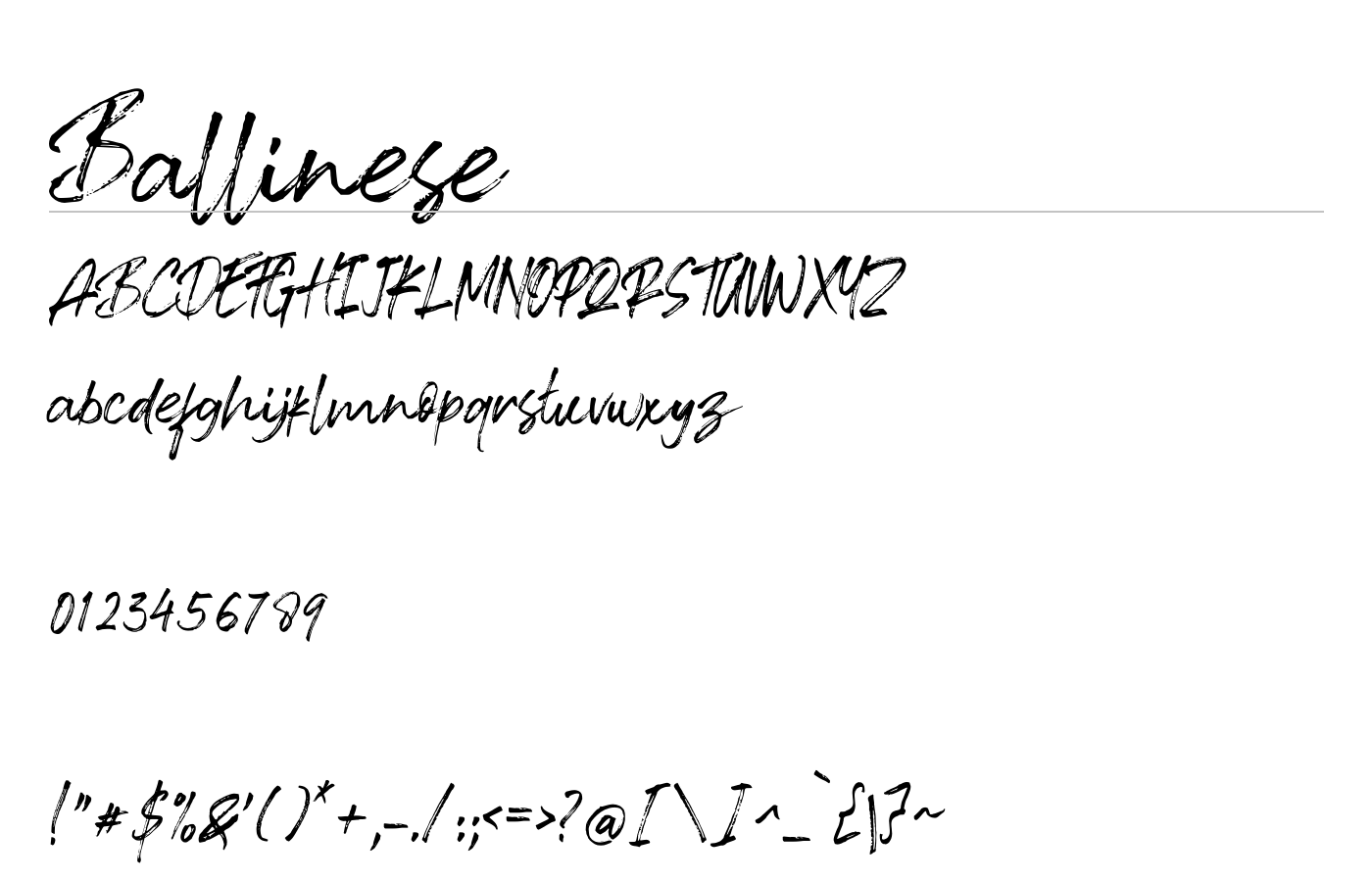
Ballinese is a lively, handwritten script font with a strong, textured brushstroke style that gives it a dynamic and artistic feel. Its mix of upper and lowercase letters features varied stroke widths and a slightly rough, casual appearance, making it ideal for creative projects, personal branding, or designs that aim to convey energy and individuality. This font works well in logos, posters, and social media graphics where a bold, expressive, and informal touch is desired.
Ballinese Font
About Ballinese Font
| Font family | Ballinese Font |
| Designer | Arief Tri Sulistiyono |